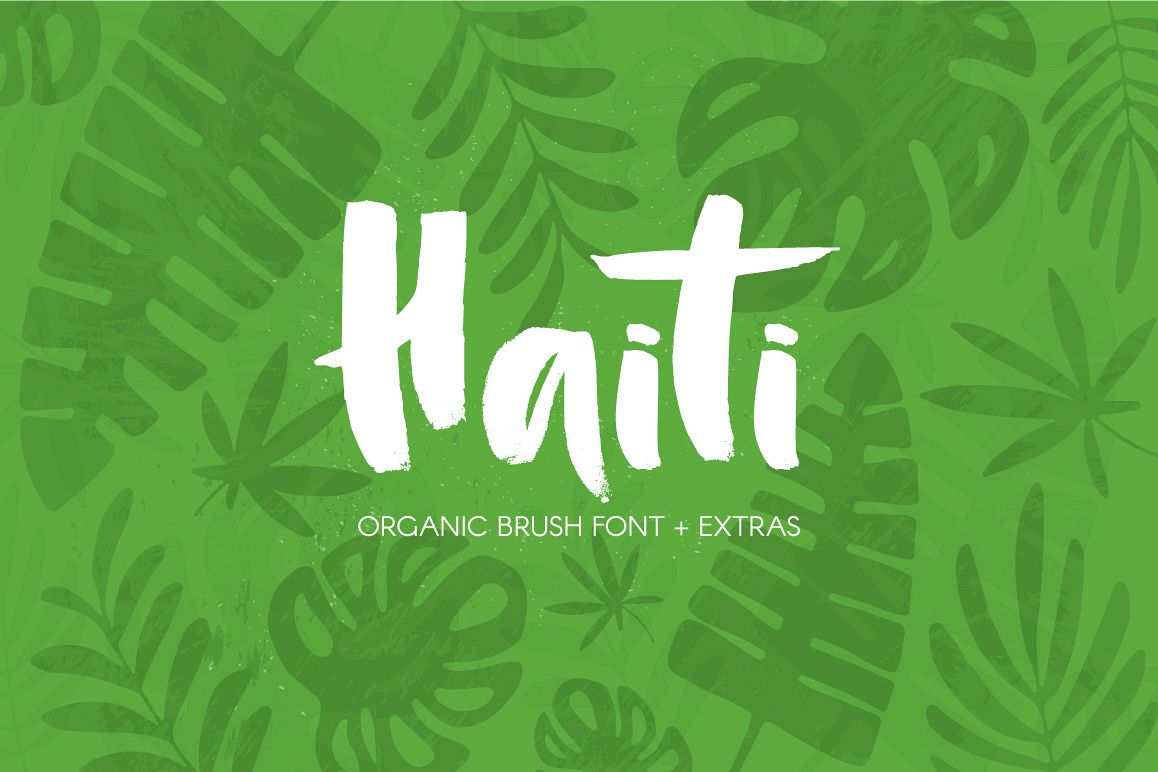
Haiti Organic Brush Font
Haiti
I’m pleased to introduce you Haiti - a friendly brush font with organic texture. It was originally drawn by ink and brush and then carefully digitized, so It has very natural feel.Haiti comes with full set of lowercase alternates and it’s PUA encoded (specially coded fonts) which means that you will be able to access all characters from any application and you don’t need to have Illustrator or Photoshop to access all extra characters.
• Standart lowercase and uppercase characters
• Alternative characters for lowercase (full set)